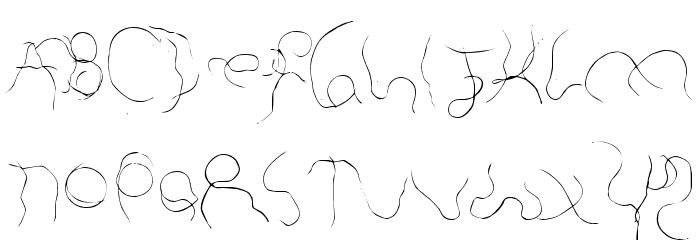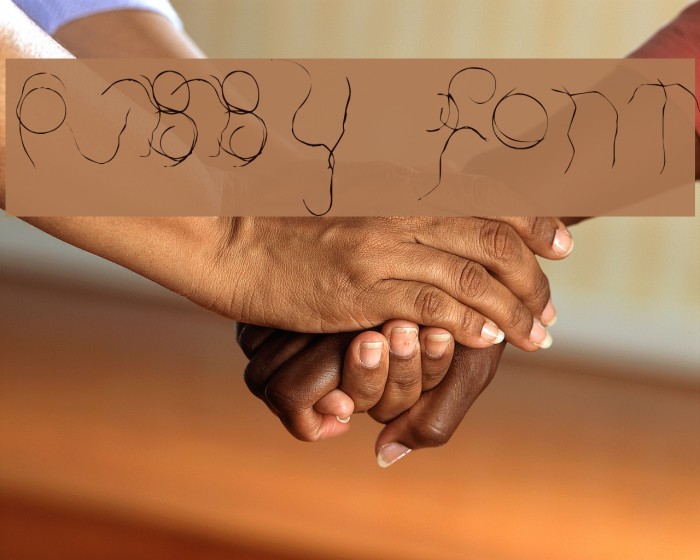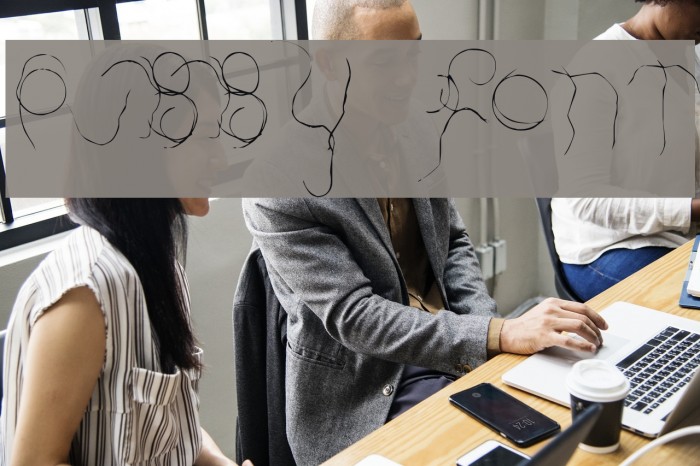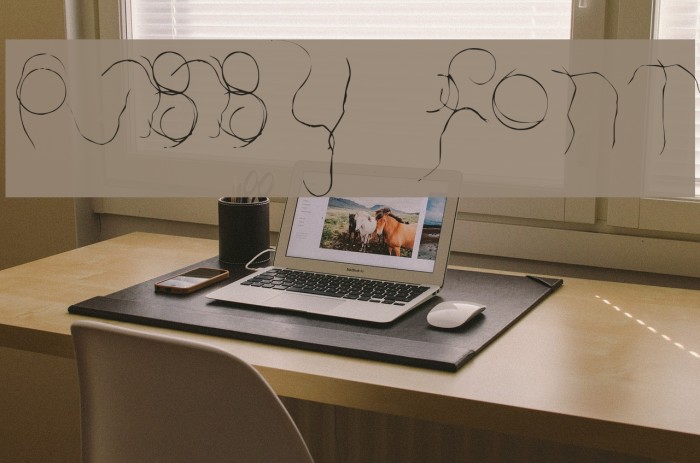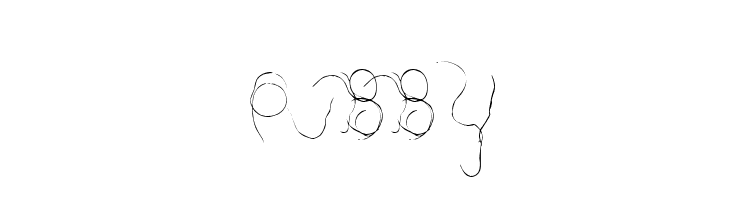
Pubby Font
This font features an artistic and abstract design, characterized by thin, wispy strokes that create a sense of fluidity and movement. The letters are highly stylized, with each character appearing as if it is drawn with a single continuous line. This gives the font a unique, almost ethereal quality. The uppercase and lowercase letters maintain a consistent style, with the uppercase being slightly more structured. The numbers and special characters follow the same design principles, ensuring a cohesive look across all elements. The font's delicate lines and intricate curves make it stand out, offering a distinctive aesthetic that is both modern and artistic.
An artistic, abstract font with thin, fluid strokes and a modern aesthetic.
- Proposed Projects: Ideal for creative projects such as art installations, modern branding, and unique invitations.
- Weight: Light
- Character Spacing: Wide
- Use Case: Logos, Artistic projects, Invitations